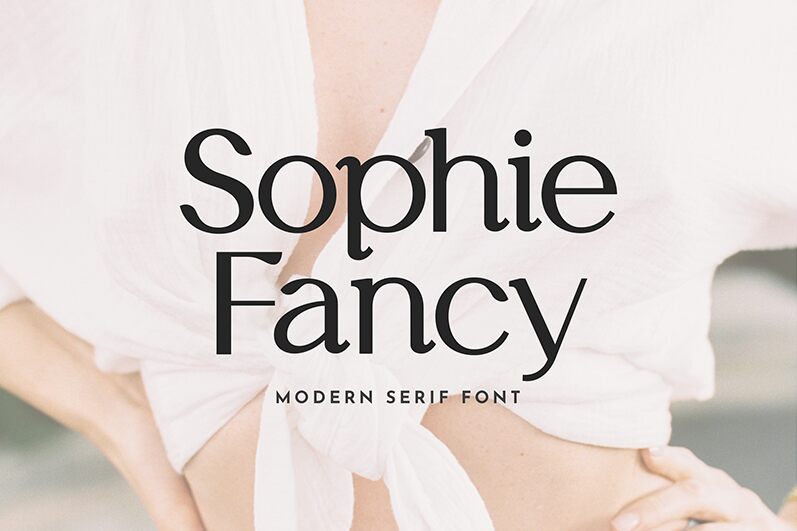
Sophie Fancy font by UI Creative is a free serif font known for its elegance and sophistication. Embodying a modern yet timeless appeal, it maintains balanced proportions and distinctive serifs that enhance its aesthetic charm. The font’s stylish, refined character makes it a suitable choice for a wide variety of professional uses.
The elegant and refined design of Sophie Fancy is ideal for high-end fashion branding, editorial layouts, and luxury product packaging. Its sophisticated tone makes it well-suited for wedding invitations, upscale restaurant menus, book titles, business cards, and corporate materials. It seamlessly fits into modern design settings, ensuring a versatile, stylish appearance.